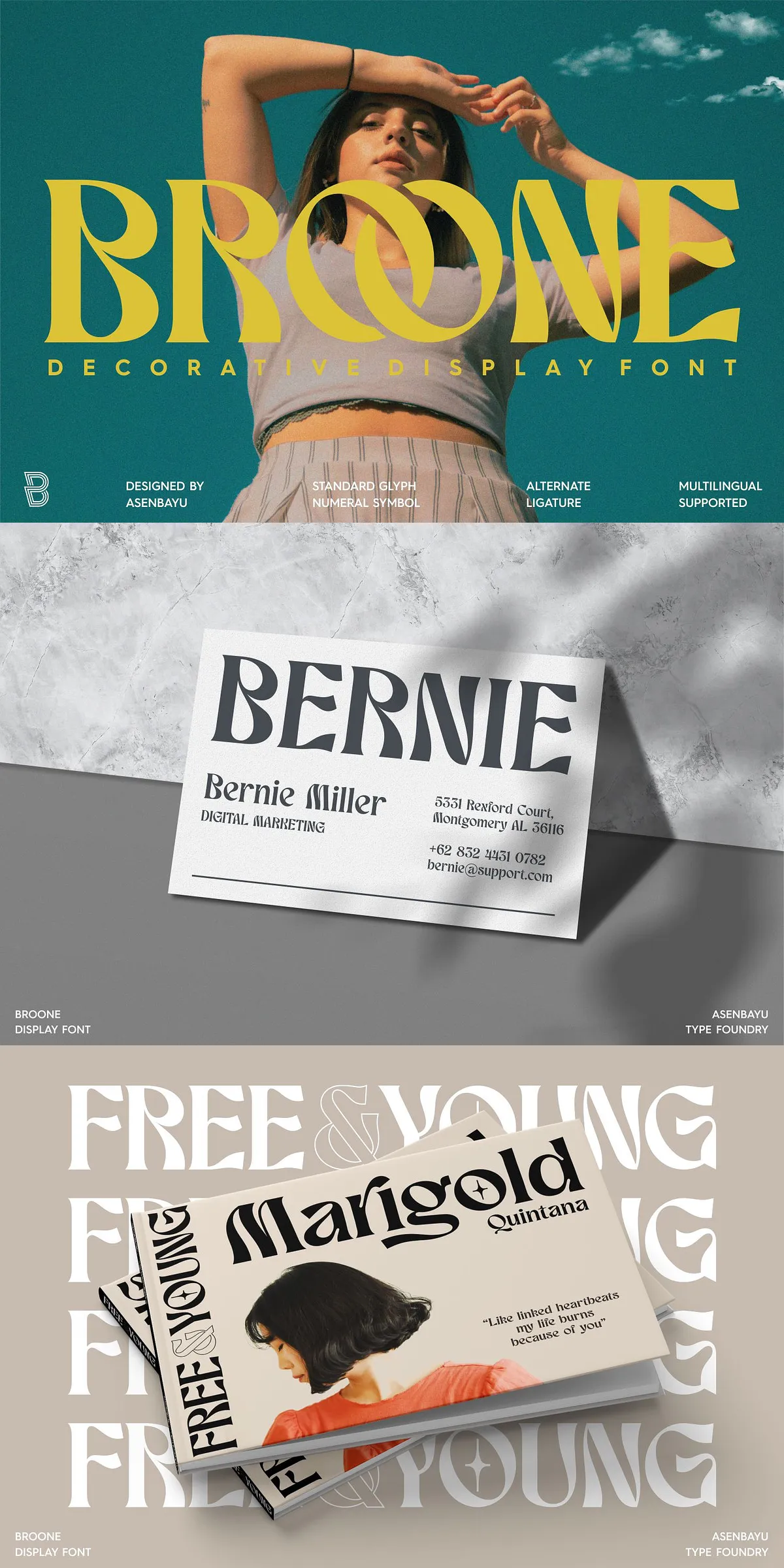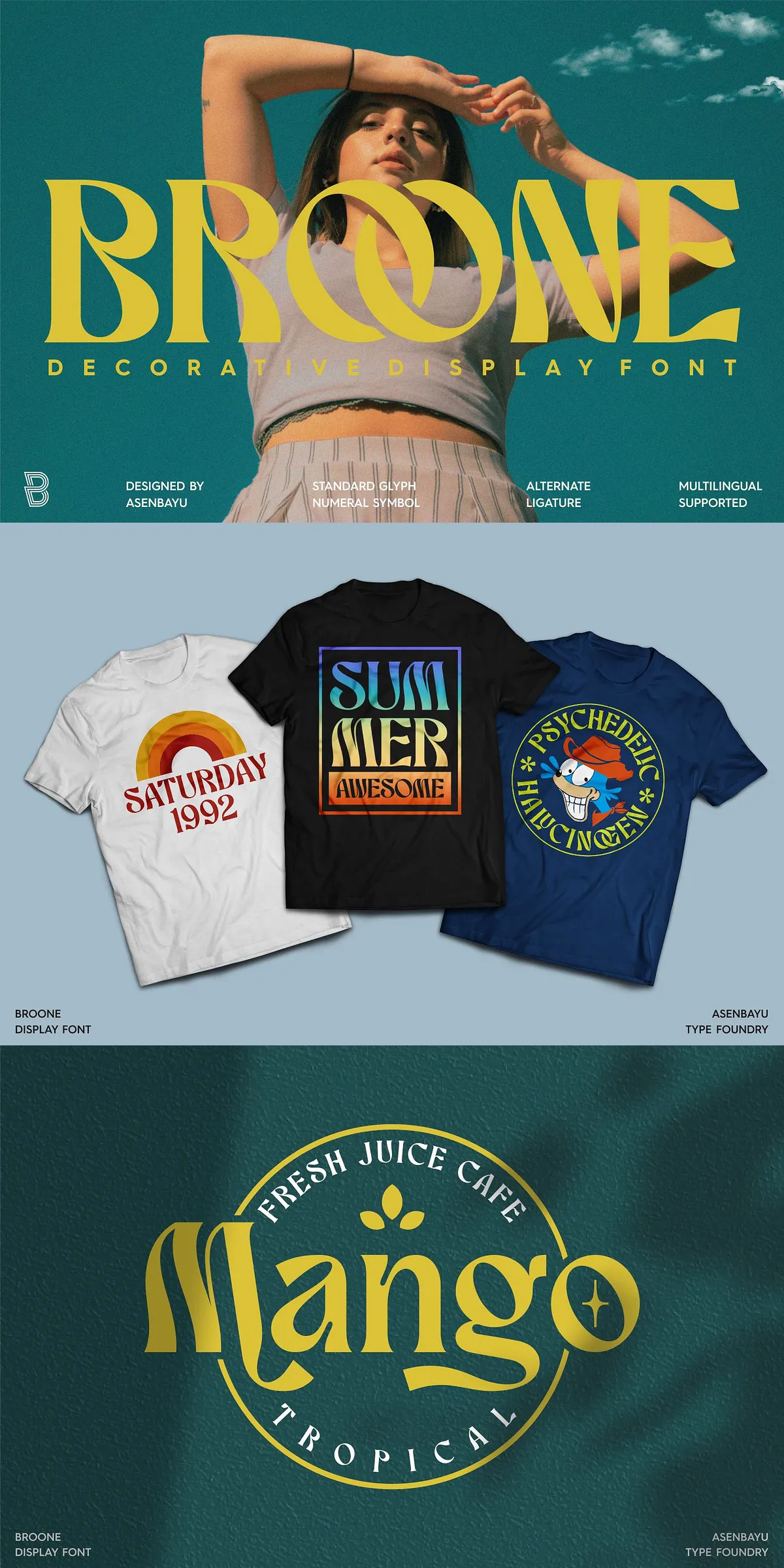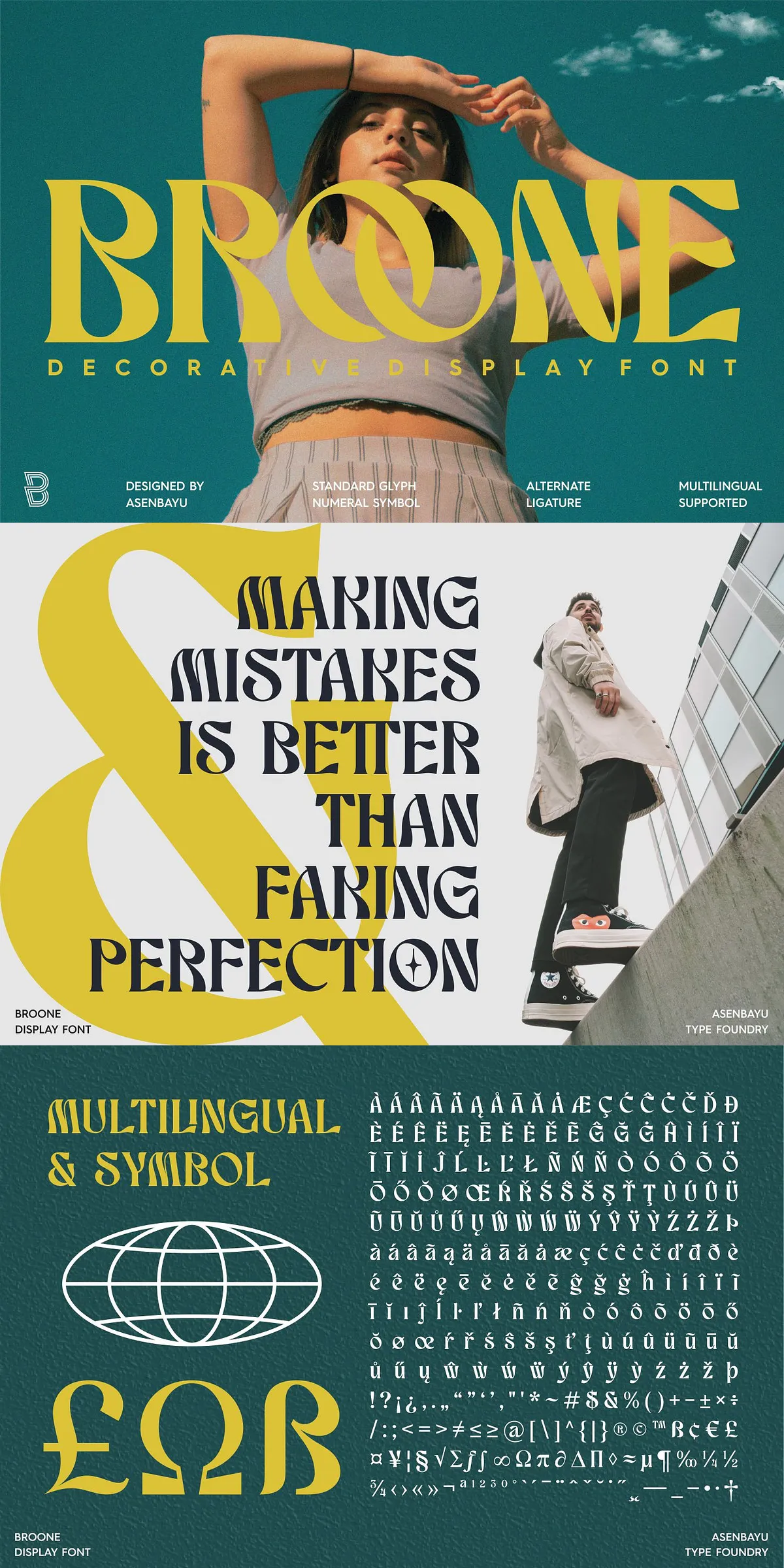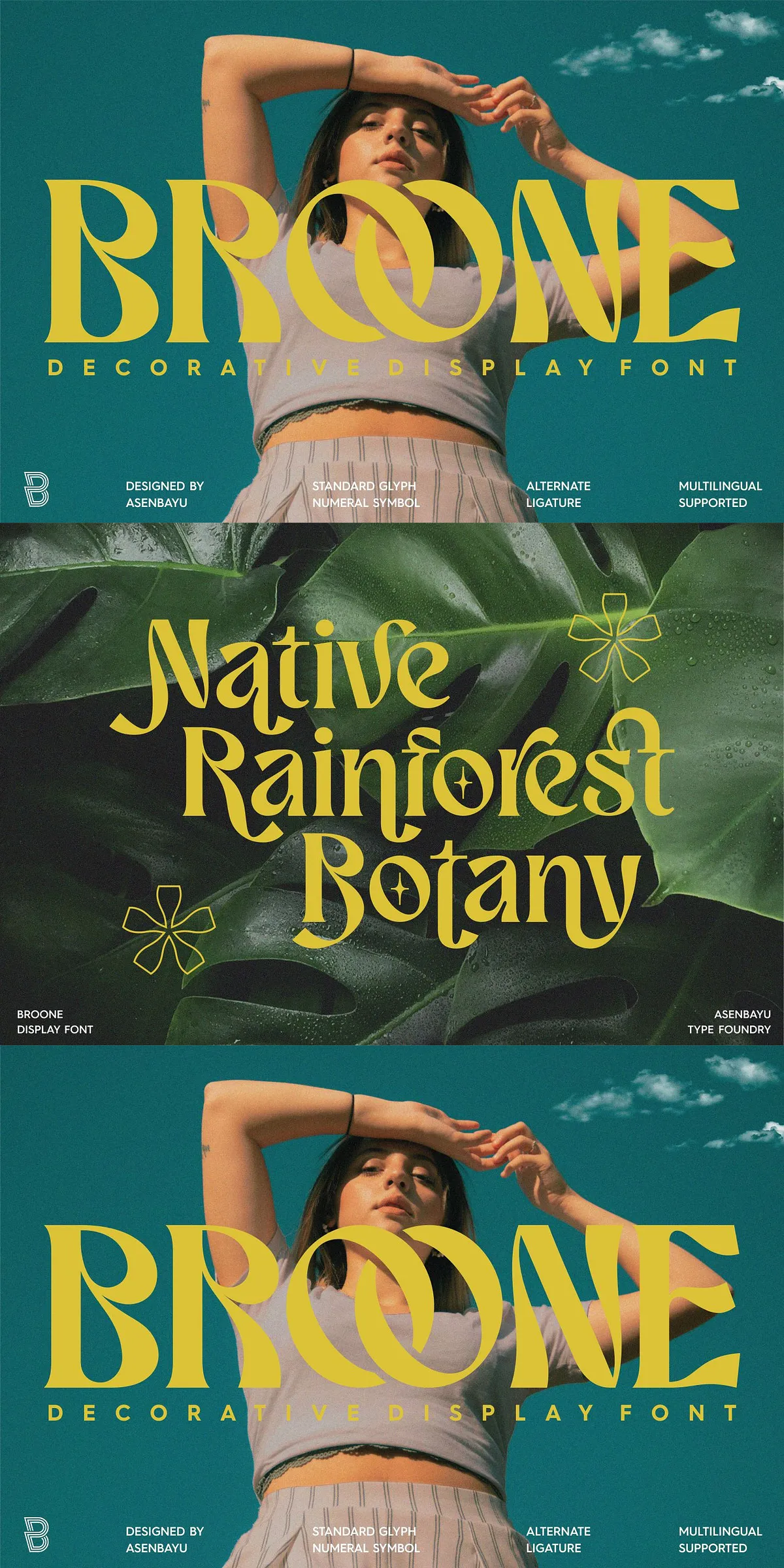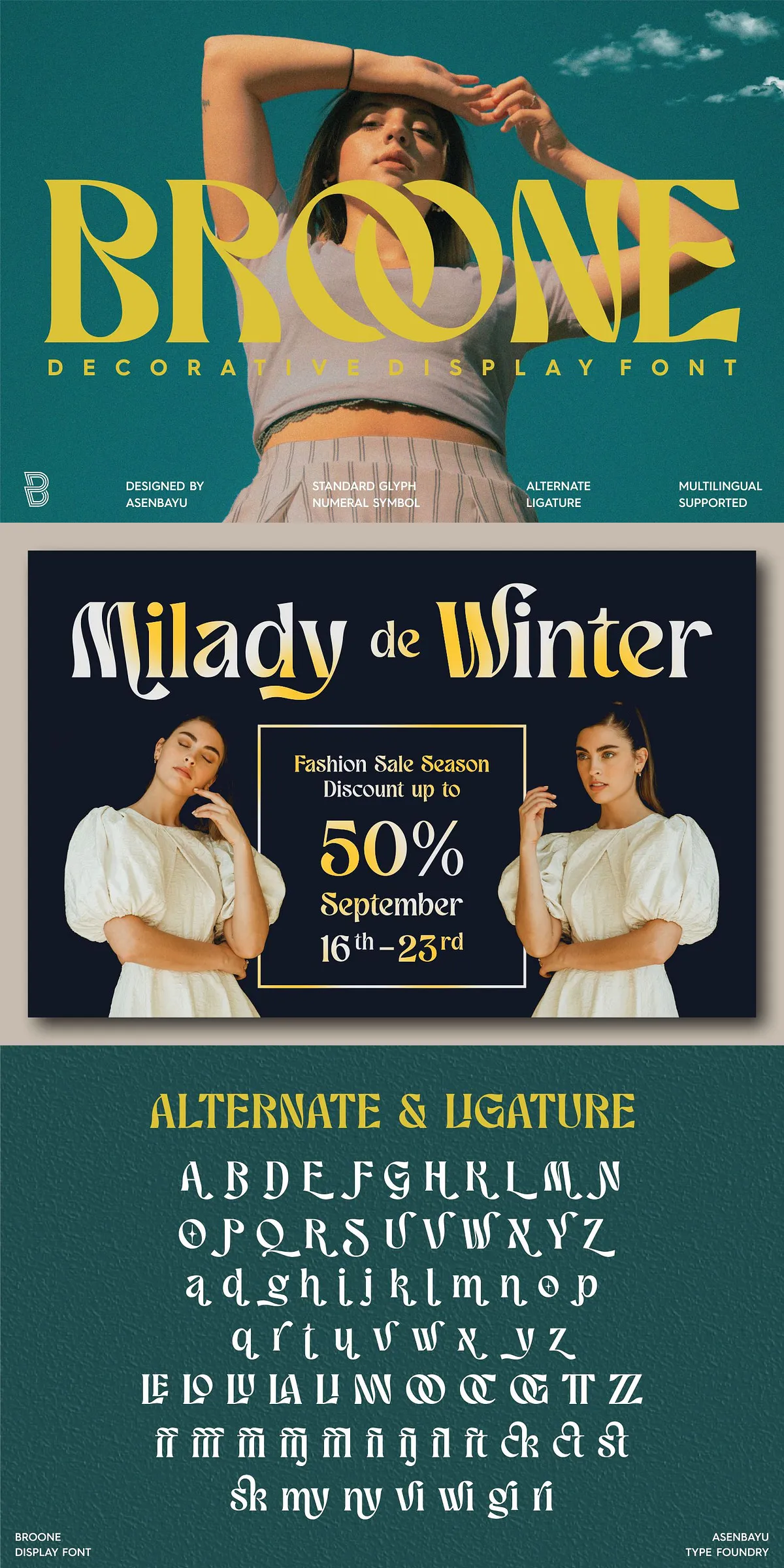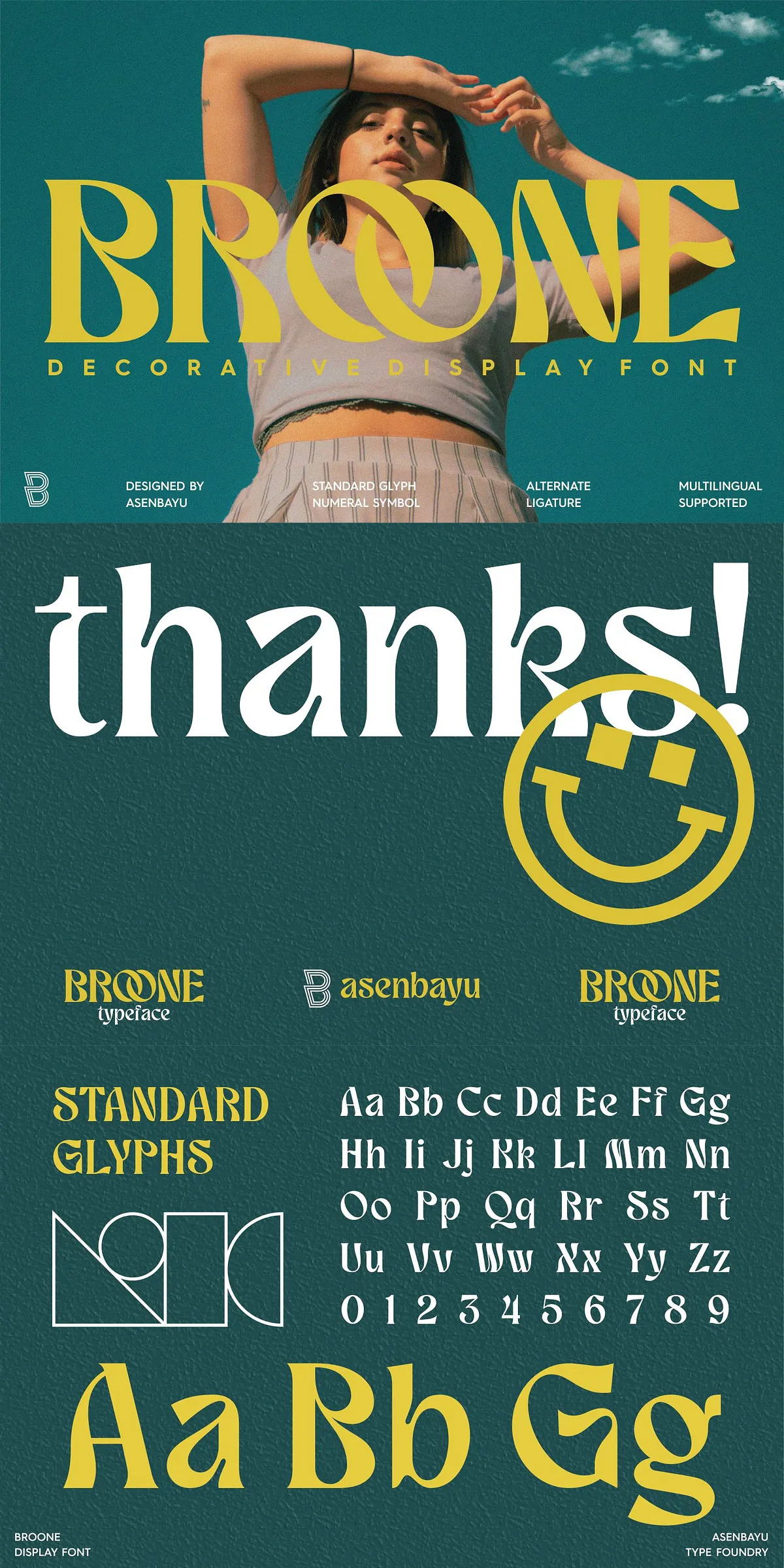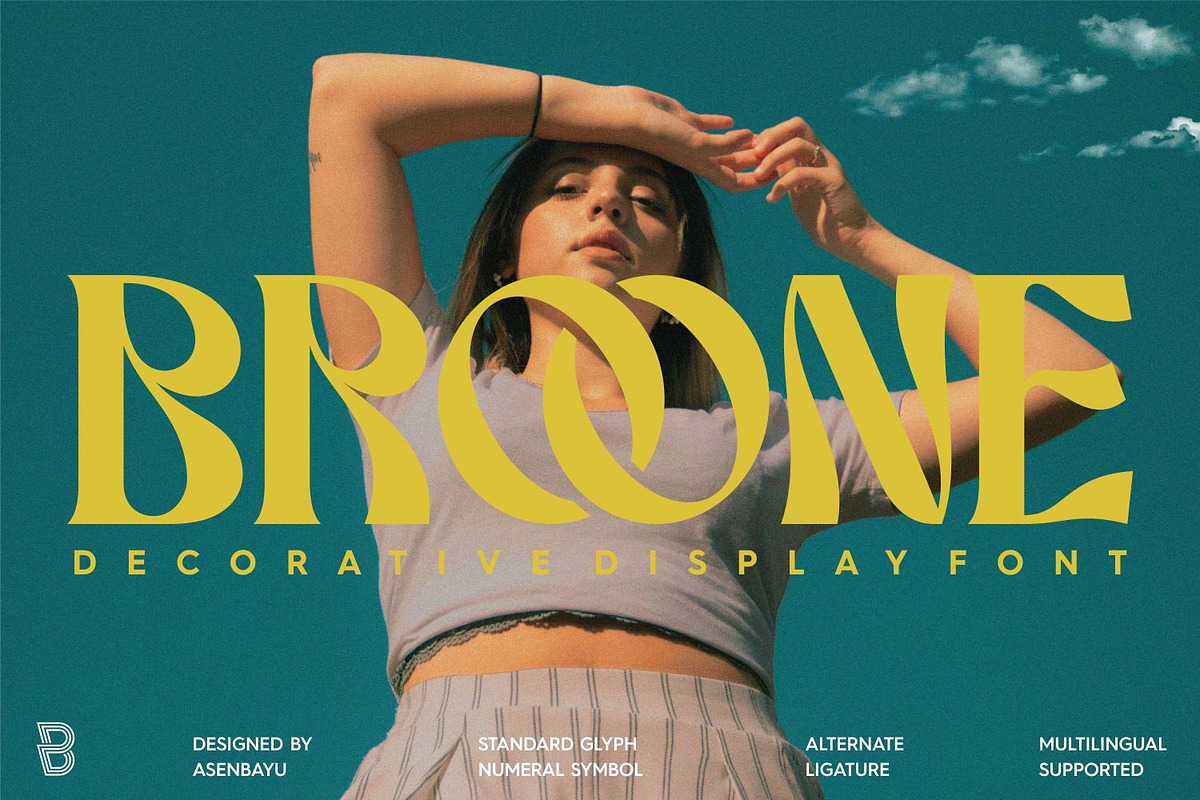
Unlock your design’s full potential with Broone — a striking, versatile decorative display font that fuses organic motion with bold typographic presence. Inspired by nature’s rhythm and the boldness of handcrafted artistry, Broone transforms ordinary text into visual poetry. With its flowing wavy shapes and elegant serif outlines, this font doesn’t just write words — it tells stories, evokes emotions, and commands attention across every project.
Unique Design Language: Where Nature Meets Typography
Broone stands out through its masterful blend of fluidity and structure. Its letterforms are defined by gentle, wave-like curves that suggest movement, breath, and life. Each stroke feels hand-sketched yet refined, giving your text a sense of authenticity and tactile quality. The serif details add a touch of classic elegance, grounding the design in tradition while the dynamic flow keeps it modern and fresh.
Whether you’re creating a serene wellness brand or a vibrant fashion line, Broone brings a natural, youthful energy that feels both grounded and imaginative. It’s not merely decorative — it’s expressive. You’re not just choosing a font; you’re selecting a voice for your brand.
Robust Feature Set for Creative Freedom
Built for versatility and precision, Broone comes packed with advanced typographic tools to elevate your design workflow:
- Standard Glyphs — Full support for uppercase, lowercase, and basic numerals.
- Alternate Characters — Swap out standard forms for unique variants to add variation and style.
- Ligatures — Smooth, connected letter pairs that enhance readability and visual flow.
- Symbol & Punctuation Set — Comprehensive support for special characters, including arrows, icons, and decorative marks.
- Multilingual Support — Full coverage of Latin-based languages, enabling global design applications.
Ideal for Packaging, Branding, and High-Impact Visuals
Broone shines brightest in projects that need instant visual impact and emotional resonance. Use it to:
- Design Eye-Catching Packaging Labels: Make your product stand out on crowded shelves with a handcrafted, artistic flair.
- Create Unique Logos & Brand Identities: Build a name that feels authentic, creative, and memorable.
- Produce Bold Poster & Print Designs: Perfect for music festivals, art exhibitions, fashion launches, or lifestyle campaigns.
- Enhance Fashion & Lifestyle Graphics: Bring a touch of organic elegance to runway looks, Instagram visuals, and apparel branding.
- Develop Retro-Inspired or Modern Minimalist Concepts: Its hybrid character allows seamless adaptation to both nostalgic and futuristic aesthetics.
Unleash Your Creativity with a Font That Inspires
Broone isn’t just a tool — it’s a catalyst. Its dynamic forms invite experimentation, encouraging you to push boundaries in your layouts and compositions. From flowing headlines to intricate typographic illustrations, this font adapts to your imagination.
When you choose Broone, you’re not just selecting a typeface — you’re adopting a design philosophy centered on individuality, expression, and visual storytelling.